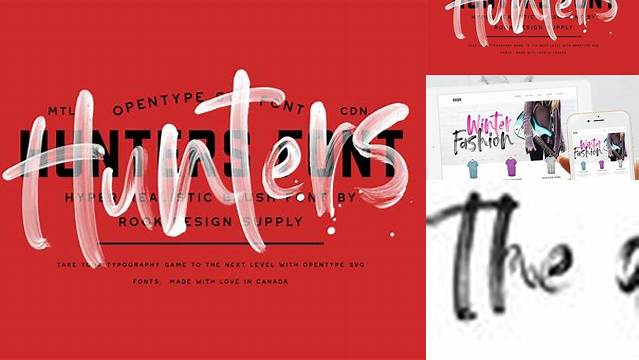
Hunters Opentype SVG Font: A Comprehensive Guide
Introduction to Hunters Opentype SVG Font
Hey guys! Ever wondered how some fonts look so incredibly detailed and realistic? Well, you might be thinking about SVG fonts! In this comprehensive guide, we're diving deep into the world of Hunters Opentype SVG Font, exploring what makes it unique, how it works, and why it's a fantastic choice for your design projects. Hunters Opentype SVG font is a game-changer in the typography world, offering a level of detail and texture that traditional fonts simply can't match. These fonts utilize the Scalable Vector Graphics (SVG) format, which allows for the inclusion of intricate details like gradients, textures, and even color variations within each glyph. This means your text can look more like a hand-drawn masterpiece than a standard font. Imagine the possibilities! From branding to web design, Hunters Opentype SVG fonts can add a touch of authenticity and artistry that truly sets your work apart. We'll be exploring the key features of Hunters Opentype SVG fonts, how they differ from other font types, and the best ways to use them in your projects. So, buckle up and get ready to discover the magic of Hunters Opentype SVG fonts! We’ll cover everything from their unique characteristics to practical tips on using them effectively. By the end of this guide, you'll be a pro at incorporating these stunning fonts into your design arsenal. Whether you're a seasoned designer or just starting out, understanding the power of Hunters Opentype SVG font will undoubtedly elevate your creative projects. Let's get started!
What Makes Hunters Opentype SVG Font Special?
So, what exactly makes Hunters Opentype SVG font so special? It's all about the details! Unlike traditional fonts, SVG fonts incorporate vector graphics directly into the font file. This means that each character can contain complex shapes, gradients, and textures, resulting in a much more visually rich and dynamic appearance. Think about it – you can have fonts that look like they've been painted, drawn, or even photographed, all without having to manually add those effects in your design software. The key advantage of Hunters Opentype SVG fonts lies in their ability to render intricate details and textures. Traditional fonts are limited to solid fills and outlines, but SVG fonts break these barriers by allowing for embedded raster images and vector graphics within each glyph. This opens up a world of creative possibilities, enabling designers to create stunning typography that truly stands out. Imagine a font that looks like it's made of gold leaf, or one that has a subtle watercolor texture – with Hunters Opentype SVG font, these effects are easily achievable. But it's not just about aesthetics. The vector nature of SVG fonts means they scale beautifully without losing quality. Whether you're using them for a small logo or a large banner, your text will always look crisp and clear. This scalability, combined with the rich detail they offer, makes Hunters Opentype SVG fonts a powerful tool for any designer looking to make a statement. Let’s delve deeper into the technical aspects and creative applications to fully understand the potential of this unique font format. We'll explore how they compare to other font types and the specific design scenarios where they truly shine.
How Do Hunters Opentype SVG Fonts Work?
Okay, let's get a little technical for a moment and talk about how Hunters Opentype SVG fonts actually work. At their core, these fonts are based on the SVG (Scalable Vector Graphics) format, which is a vector image format that uses XML to describe images. This means that instead of relying on pixels, SVG fonts use mathematical equations to define the shapes of the characters. This is what gives them their incredible scalability – you can resize them infinitely without any loss of quality. Each glyph in a Hunters Opentype SVG font is essentially a miniature SVG image. This image can contain paths, gradients, textures, and even embedded raster images. When you type a character using an SVG font, your computer or design software renders the corresponding SVG image, displaying it on the screen. The OpenType part of the name refers to the font file format, which is an industry standard for digital fonts. OpenType fonts can contain a wide range of features, including ligatures, alternates, and other advanced typographic options. When combined with SVG, OpenType allows for the creation of fonts that are both visually stunning and highly functional. One of the key benefits of this technology is the ability to include multiple colors and gradients within a single glyph. Traditional fonts are typically limited to a single color, but Hunters Opentype SVG fonts can incorporate a full spectrum of hues and shades, adding depth and dimension to your text. This is particularly useful for creating realistic and eye-catching typography. Understanding the underlying technology helps to appreciate the creative possibilities that Hunters Opentype SVG fonts offer. We'll continue to explore the practical applications and design considerations in the following sections, giving you a comprehensive understanding of how to leverage these fonts in your projects. Let's move on to comparing SVG fonts with traditional font formats to further highlight their unique advantages.
Hunters Opentype SVG vs. Traditional Fonts: Key Differences
Now, let’s compare Hunters Opentype SVG fonts with traditional fonts to really understand their unique advantages. The main difference, as we've touched on, lies in the level of detail and texture that SVG fonts can achieve. Traditional fonts, like TrueType and OpenType (without SVG), are based on outlines filled with a solid color. This means they lack the ability to display intricate details like gradients, textures, or embedded images. Hunters Opentype SVG fonts, on the other hand, use the SVG format to incorporate these elements directly into the glyphs. This allows for a much richer and more realistic appearance. Imagine a font that looks like it's been hand-painted or one with a subtle grainy texture – these effects are simply not possible with traditional fonts. Another key difference is the file size. SVG fonts tend to be larger than traditional fonts because they contain more data. Each glyph essentially contains a miniature vector image, which can include complex shapes and color information. However, the trade-off is worth it for the visual impact and uniqueness that SVG fonts provide. Scalability is another area where SVG fonts shine. Both SVG and traditional fonts are vector-based, meaning they can be scaled to any size without losing quality. However, the added detail in Hunters Opentype SVG fonts means that even at large sizes, they maintain their crispness and clarity. This makes them ideal for headlines, posters, and other large-format designs. Finally, compatibility is an important consideration. While SVG fonts are becoming more widely supported, not all software and browsers fully support them yet. Traditional fonts, on the other hand, have universal support. However, the growing popularity of SVG fonts means that support is constantly improving, and they are becoming an increasingly viable option for a wide range of projects. To summarize, Hunters Opentype SVG fonts offer a significant leap forward in typography, providing designers with a powerful tool for creating stunning and unique text effects. Let's explore some specific use cases where these fonts can truly make a difference.
Best Use Cases for Hunters Opentype SVG Font
So, where do Hunters Opentype SVG fonts really shine? Let's dive into some specific use cases where these fonts can make a significant impact. One of the most compelling applications is in branding. A unique and visually striking font can help a brand stand out from the competition and create a memorable identity. Hunters Opentype SVG fonts offer the perfect opportunity to add a touch of personality and artistry to a logo or brand name. Imagine a logo with a font that looks hand-lettered or one that incorporates subtle textures that reflect the brand's values – this level of detail can create a powerful emotional connection with the audience. Web design is another area where SVG fonts can excel. They can be used for headlines, banners, and other prominent text elements to create a visually engaging website. The ability to incorporate gradients and textures can add depth and dimension to the design, making it more dynamic and interesting. Plus, the scalability of SVG fonts means they will look great on any device, from smartphones to large desktop screens. Print design is also a fantastic use case. Whether you're creating posters, flyers, or brochures, Hunters Opentype SVG fonts can add a touch of sophistication and creativity. The intricate details and textures will stand out beautifully in print, making your designs more eye-catching and memorable. Think about a poster with a headline that looks like it's been painted or a brochure with a font that has a subtle vintage texture – these details can elevate the overall design and make it more impactful. In addition to these applications, SVG fonts are also great for invitations, social media graphics, and any other project where you want to make a statement. The key is to use them strategically and in a way that complements the overall design aesthetic. Now that we've explored some use cases, let's talk about how to choose the right SVG font for your project.
Choosing the Right Hunters Opentype SVG Font
Choosing the right Hunters Opentype SVG font can make all the difference in your design project. With so many options available, it's important to consider a few key factors to ensure you select a font that perfectly fits your needs. First and foremost, think about the overall style and tone of your project. Are you going for a vintage look? A modern aesthetic? Something playful and whimsical? Hunters Opentype SVG fonts come in a wide variety of styles, so it's essential to choose one that aligns with the message you're trying to convey. A script font with a hand-lettered feel might be perfect for a wedding invitation, while a bold, textured font could be ideal for a rock concert poster. Consider the legibility of the font. While SVG fonts are known for their intricate details, it's important to ensure that the text is still easy to read, especially at smaller sizes. Some highly detailed fonts may look stunning at large sizes but become difficult to decipher when scaled down. Always test the font at different sizes to ensure it remains legible. The color palette of the font is another crucial factor. Hunters Opentype SVG fonts can incorporate multiple colors and gradients, so it's important to choose a font with a color scheme that complements your overall design. If your project has a specific color theme, look for fonts that align with those colors or can be easily customized to match. Think about the font's versatility. Can it be used in a variety of contexts? A font that works well for headlines might not be suitable for body text, and vice versa. Choose a font that offers the flexibility you need for your project. Finally, consider the licensing terms of the font. Some fonts are free for personal use but require a commercial license for business projects. Make sure you understand the licensing terms before using a font in your work. By considering these factors, you can choose a Hunters Opentype SVG font that not only looks beautiful but also effectively communicates your message. Next, we'll delve into the technical aspects of using these fonts in your design software.
Tips for Designing with Hunters Opentype SVG Fonts Effectively
Designing with Hunters Opentype SVG fonts can be a lot of fun, but it's important to use them effectively to achieve the best results. These fonts are visually striking, so a little goes a long way. Overusing them can make your design feel cluttered and overwhelming. It’s all about balance, guys! One key tip is to use SVG fonts sparingly. They're best suited for headlines, logos, and other prominent text elements, rather than large blocks of body text. Think of them as a decorative element that adds visual interest and personality to your design. Pair Hunters Opentype SVG fonts with simpler, more legible fonts for body text to ensure readability. Another important tip is to consider the context of your design. What message are you trying to convey? What is the overall tone and style of your project? Choose an SVG font that aligns with these factors. A playful, whimsical font might be perfect for a children's book, but it wouldn't be appropriate for a corporate report. Think about the color palette of your font. Hunters Opentype SVG fonts can incorporate multiple colors and gradients, so it's important to choose a font with a color scheme that complements your overall design. If your project has a specific color theme, look for fonts that align with those colors or can be easily customized to match. Experiment with different typographic settings. Kerning, tracking, and leading can all have a significant impact on the appearance of your text. Play around with these settings to achieve the best visual result. Remember, readability is key. While SVG fonts are visually stunning, it's important to ensure that your text is still easy to read. Avoid using highly detailed fonts at small sizes, and always test your design at different sizes to ensure legibility. Last but not least, don't be afraid to experiment and have fun! Hunters Opentype SVG fonts offer a world of creative possibilities, so explore different options and see what works best for your project. Let's move on to discussing some common challenges you might encounter and how to overcome them.
Common Challenges and How to Overcome Them
Like any design tool, Hunters Opentype SVG fonts can present some challenges. But don't worry, guys! With a little know-how, you can easily overcome these hurdles and create stunning designs. One common challenge is compatibility. As we've mentioned, not all software and browsers fully support SVG fonts yet. If you're working with a program that doesn't have native support, you may need to use a workaround, such as rasterizing the text or using a different font format. Another challenge is file size. Hunters Opentype SVG fonts can be quite large due to the intricate details and embedded graphics. This can slow down your design software and increase the loading time of your website. To mitigate this, try to use SVG fonts sparingly and optimize your images for the web. Legibility can also be an issue, especially with highly detailed fonts. If your text is difficult to read, try using a simpler font for body text and reserve the SVG font for headlines and other prominent elements. Another common issue is color consistency. Hunters Opentype SVG fonts can incorporate multiple colors and gradients, but these colors may not always render consistently across different devices and browsers. To ensure color accuracy, it's best to use a consistent color palette and test your designs on a variety of devices. Customization can also be a challenge. While some SVG fonts allow you to customize the colors and textures, others are more limited. If you need to make specific adjustments, you may need to use a vector graphics editor like Adobe Illustrator. Finally, performance can be a concern, especially when using SVG fonts on the web. The complex graphics can sometimes slow down page loading times. To improve performance, try to optimize your SVG files and use caching techniques. By being aware of these challenges and taking steps to address them, you can effectively use Hunters Opentype SVG fonts in your designs. Now, let's explore some of the best resources for finding high-quality SVG fonts.
Final Thoughts on the Power and Potential of Hunters Opentype SVG Fonts
We've journeyed through the fascinating world of Hunters Opentype SVG fonts, and it's clear that these fonts are more than just a trend – they're a powerful tool for designers. Their ability to incorporate intricate details, textures, and colors opens up a new realm of creative possibilities, allowing you to create typography that truly stands out. Hunters Opentype SVG fonts represent a significant evolution in typography, bridging the gap between traditional fonts and hand-drawn artistry. They offer a unique blend of technical precision and artistic expression, making them a valuable asset in any designer's toolkit. The scalability of SVG fonts ensures that your typography will look crisp and clear at any size, whether it's a small logo or a large billboard. This makes them ideal for a wide range of applications, from branding and web design to print projects and social media graphics. While there are some challenges to consider, such as compatibility and file size, the benefits of using Hunters Opentype SVG fonts far outweigh the drawbacks. By understanding the technology behind these fonts and following best practices for design, you can effectively incorporate them into your projects and create stunning visual results. As we've seen, the future of typography is bright, with variable fonts, animation, and 3D effects on the horizon. Hunters Opentype SVG fonts are at the forefront of this evolution, pushing the boundaries of what's possible with digital typography. Ultimately, the power of these fonts lies in their ability to evoke emotion and tell a story. By carefully selecting and using SVG fonts, you can create typography that not only looks beautiful but also communicates your message effectively and resonates with your audience. So, embrace the potential of Hunters Opentype SVG fonts and let your creativity soar. Experiment with different styles, textures, and colors, and don't be afraid to break the rules. The world of typography is constantly evolving, and these fonts offer a unique opportunity to express your individual style and create truly unforgettable designs. Happy designing!